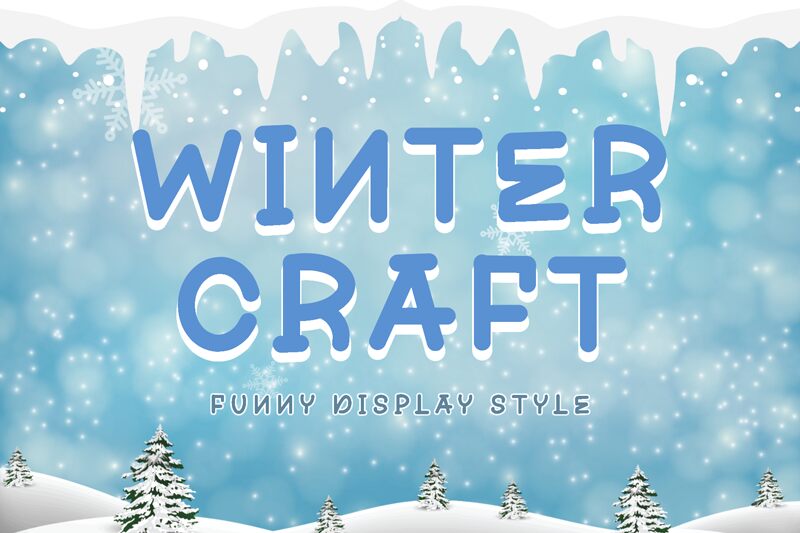
Winter Craft font by Yoga Letter is a fancy free font that brings a fun contemporary design. Cheerful and playful, the typeface has a decorative touch suitable for winter-themed projects. The designer added round corners that add a casual feel to the beautiful alphabet. All the letters were designed by hand to guarantee a unique typography product suitable for a wide range of purposes.
What can be more suitable for a children’s project than Winter Craft? Additional suitable applications include packaging, greeting cards, branding, invitation cards, labels, and title fonts. The font is readable over plain and illustrated backgrounds making it visually appealing across digital, print, and other creative fields.